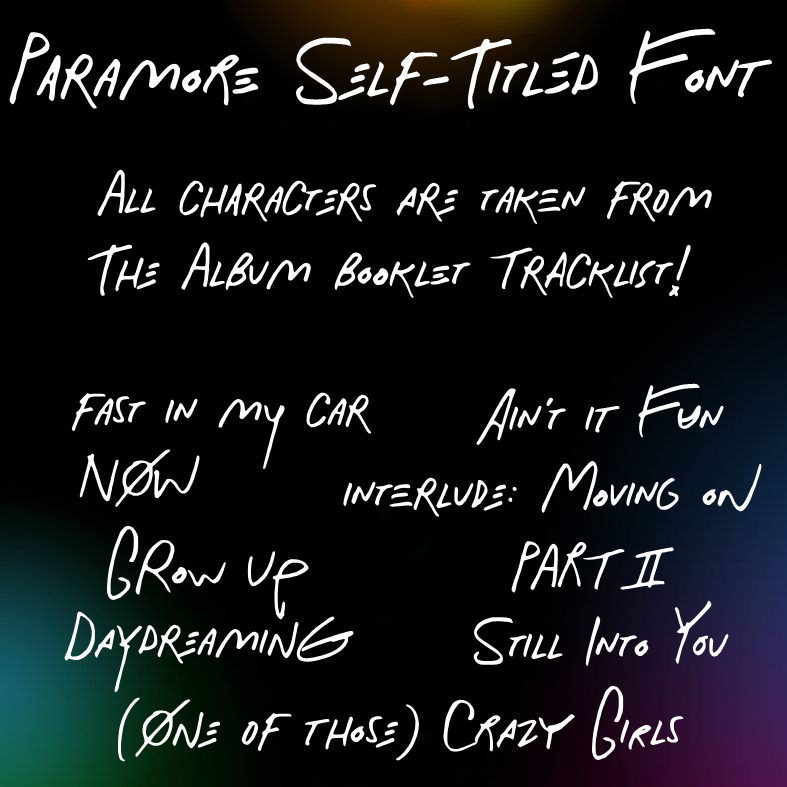
Paramore Self-Titled Font
The Self-Titled font is a font based on the album “Self-Titled” by Paramore.
The characters in this font are inspired by the album booklet and the tracklist.